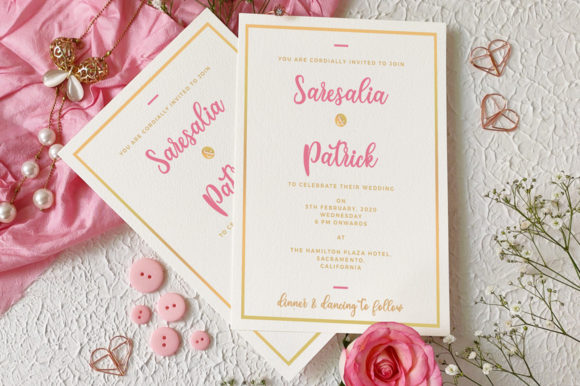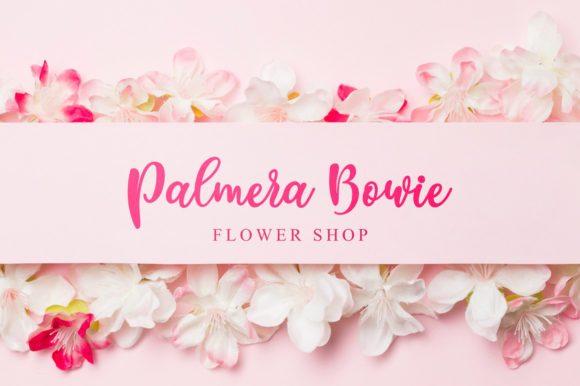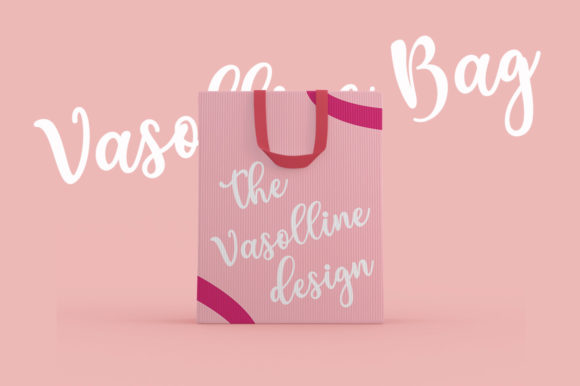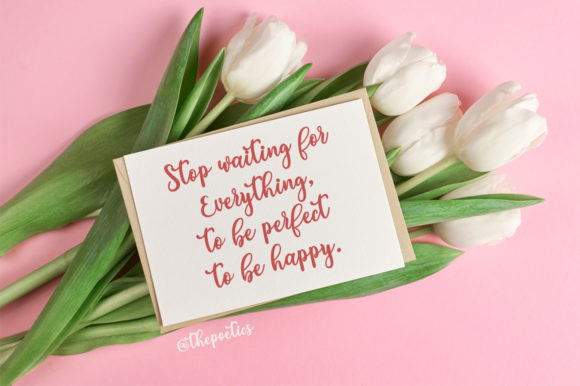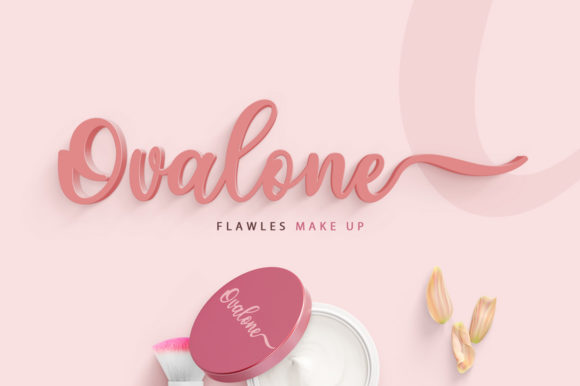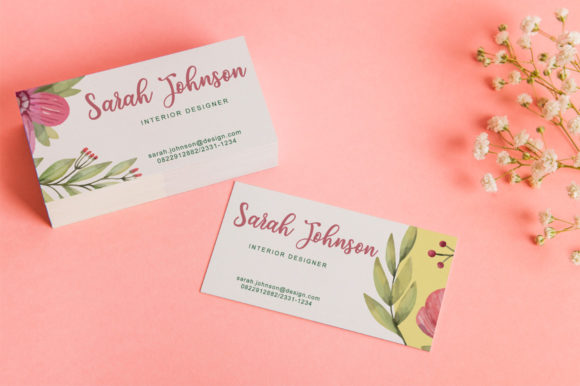
Introduction to Medyna Font
Have you ever stumbled upon the perfect font that makes your creative project stand out from the crowd? For designers, finding that elusive font can be a game-changer. It’s the moment when all the pieces come together, and your vision starts to take shape. For those who have been searching for that special something, we’re excited to introduce you to the Medyna Font.
This romantic and sweet calligraphy typeface is a design lover’s dream come true. With characters that dance along the baseline, Medyna Font adds a luxury spark to any project, elevating it to a whole new level of sophistication. Whether you’re working on a high-quality brochure, a website, or a social media campaign, Medyna Font is the perfect design resource to help you create something truly special.
- Unique characteristics, such as its elegant and modern design, make it an ideal choice for creative projects requiring a sophisticated look.
Honest Review: Medyna Font
As a designer, I’m always on the lookout for high-quality design resources that can help elevate my creative projects. Recently, I had the chance to work with the Medyna Font, and I’m excited to share my thoughts on this versatile font.
- ✨ Elegant and modern design: The Medyna Font features a sleek and sophisticated design that’s perfect for a variety of creative projects, from branding to editorial work.
- ⚠️ Limited language support: The Medyna Font primarily supports Latin characters, which may limit its use for projects requiring languages with non-Latin scripts.
- ⚠️ No transparent background option: While the font itself is excellent, the lack of a transparent background option can make it more challenging to use in certain design scenarios.
Overall, I’m impressed with the Medyna Font’s potential as a design resource. While it may have some limitations, its high-quality design and free download make it an excellent choice for many creative projects.
Tips for Getting the Most Out of Medyna Font
Use the transparent background feature to create visually appealing designs. Experiment with different font sizes and styles to add depth and interest to your project. You can also use Medyna Font in combination with other design resources to create a unique and eye-catching look.
Medyna Font is a versatile design resource that can be used in a variety of projects, including social media graphics, presentations, and blog posts. It’s a great choice for anyone looking for a high-quality, free download font with a transparent background.
Does Medyna Font have a transparent background?
Yes, Medyna Font has a transparent background, making it easy to use in design projects that require a transparent or semi-transparent font. This feature allows you to use the font on top of images or other design elements without worrying about a solid background.